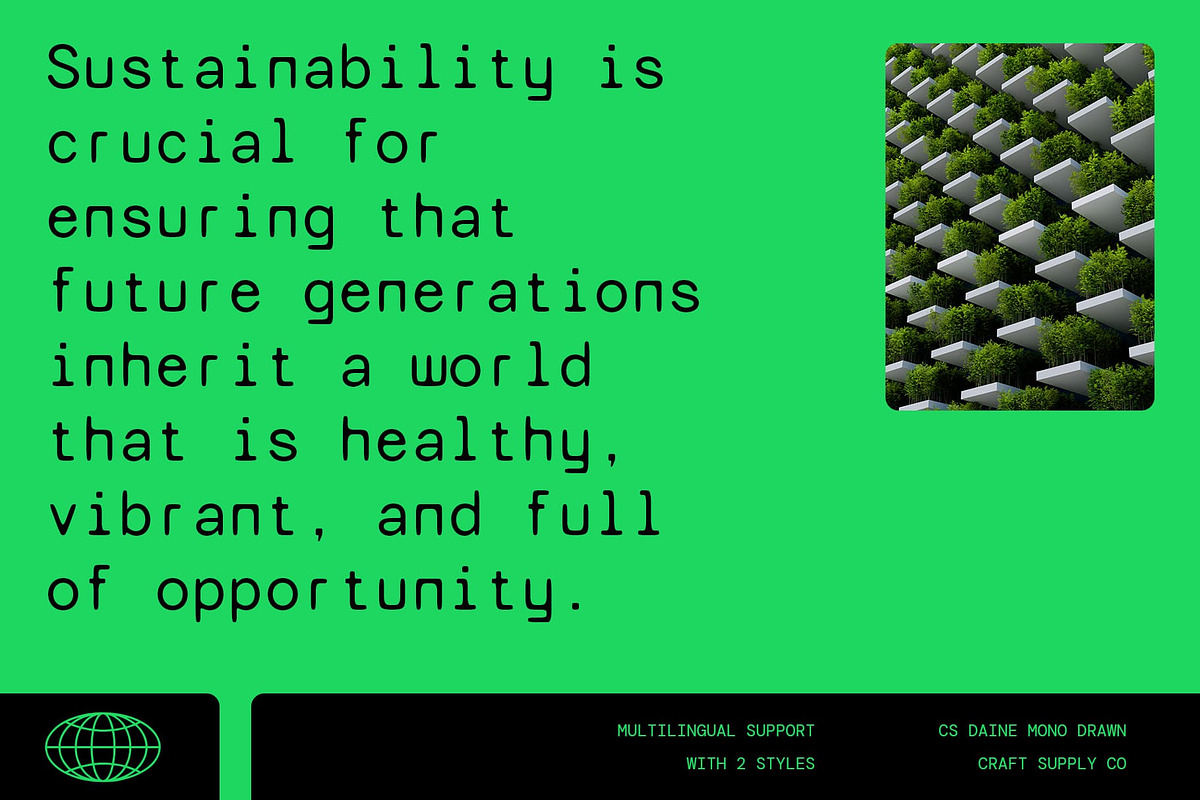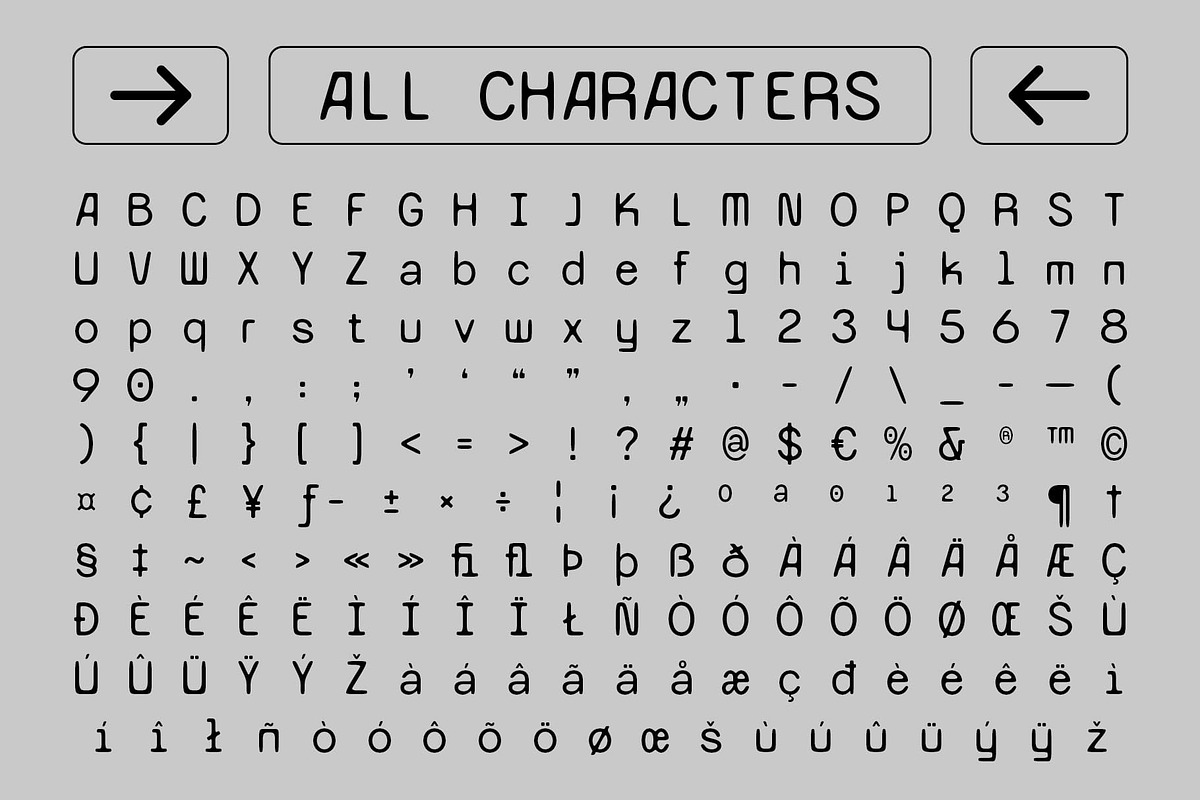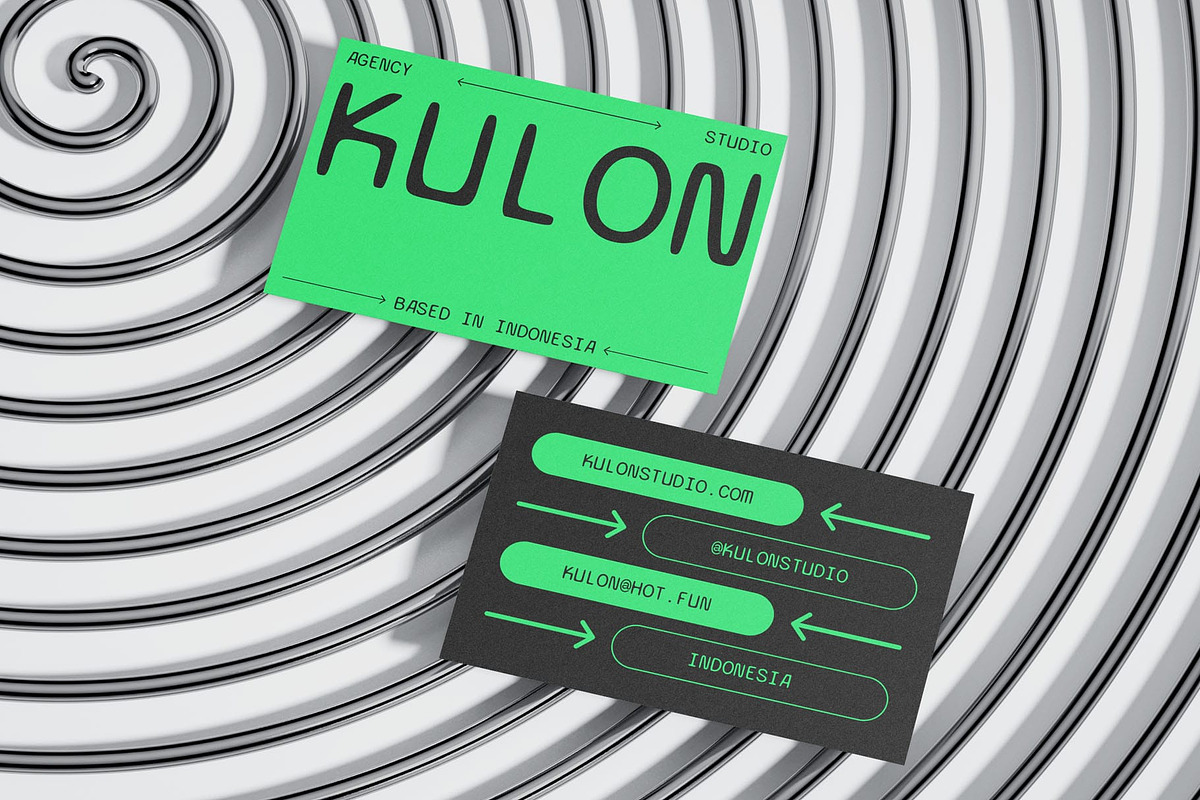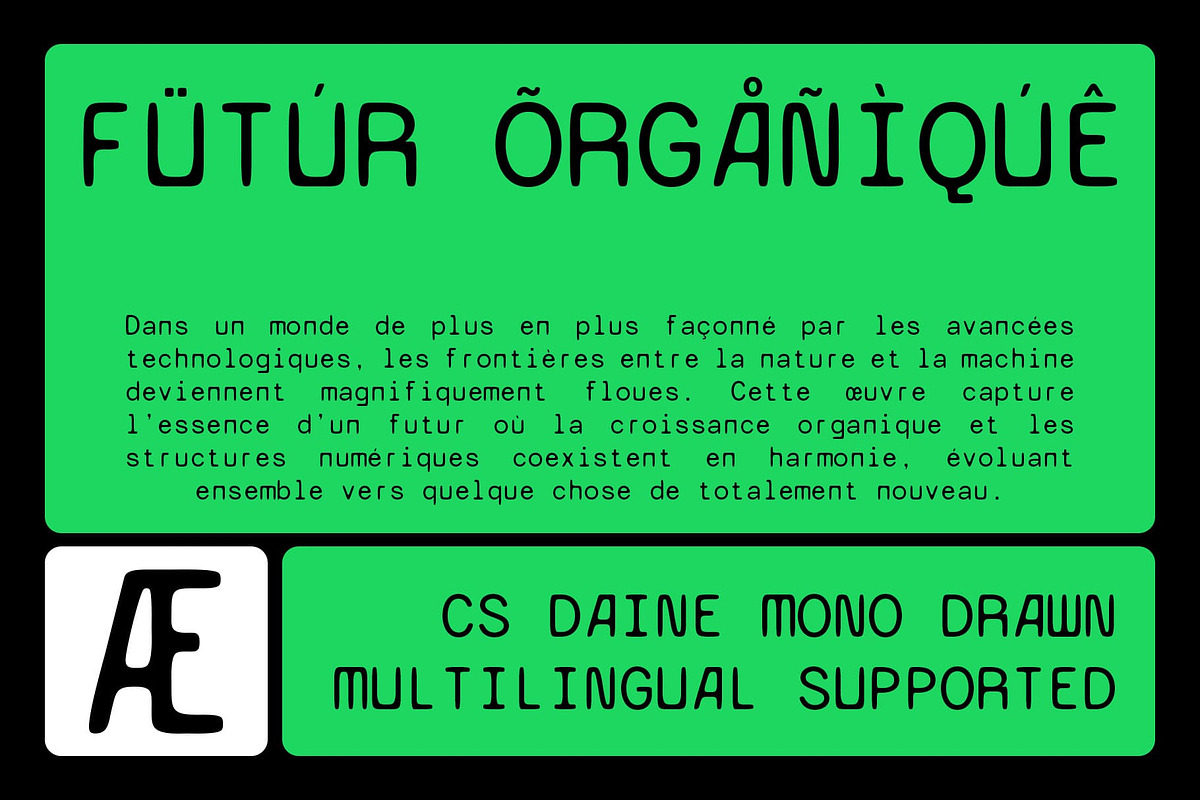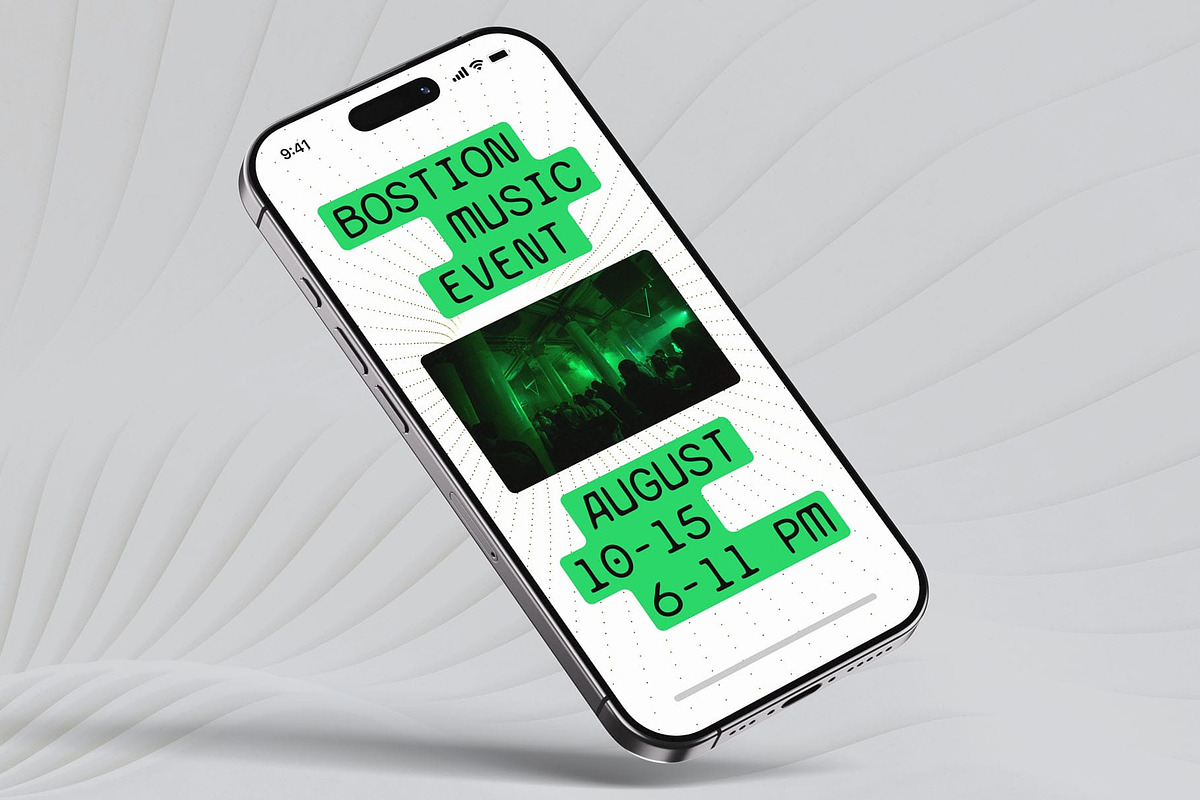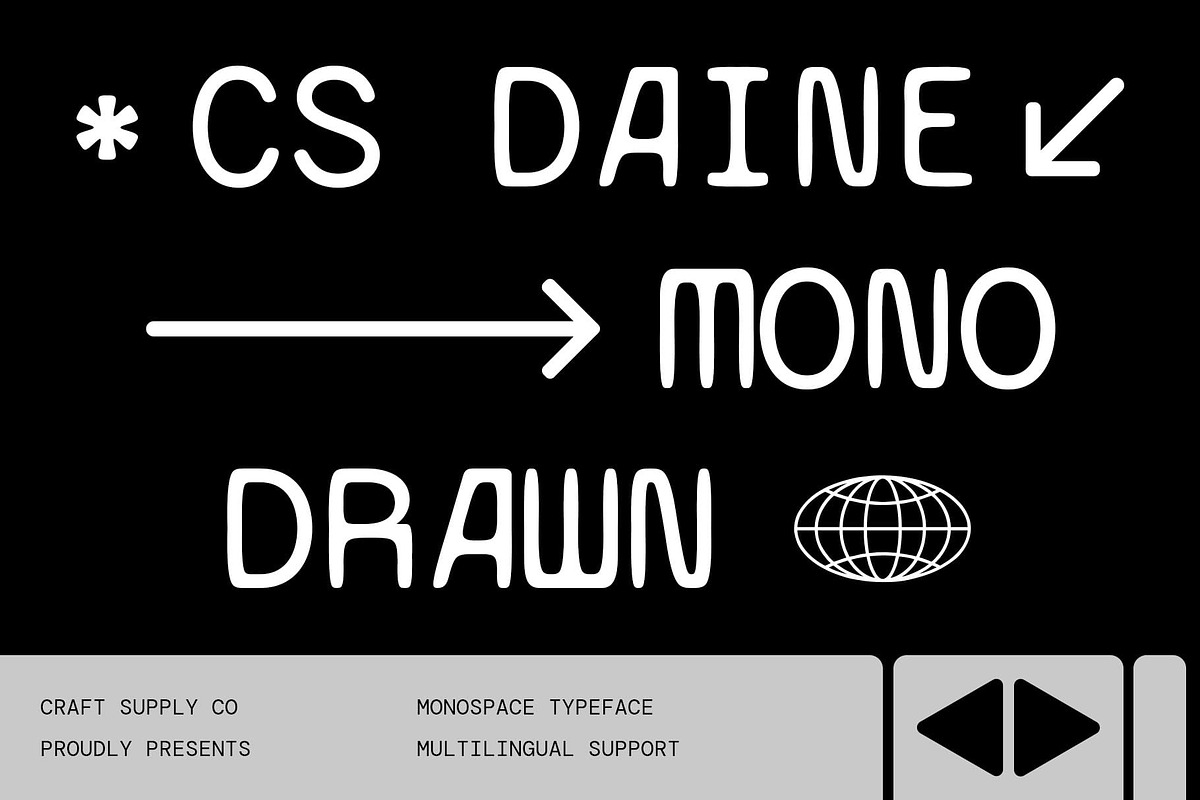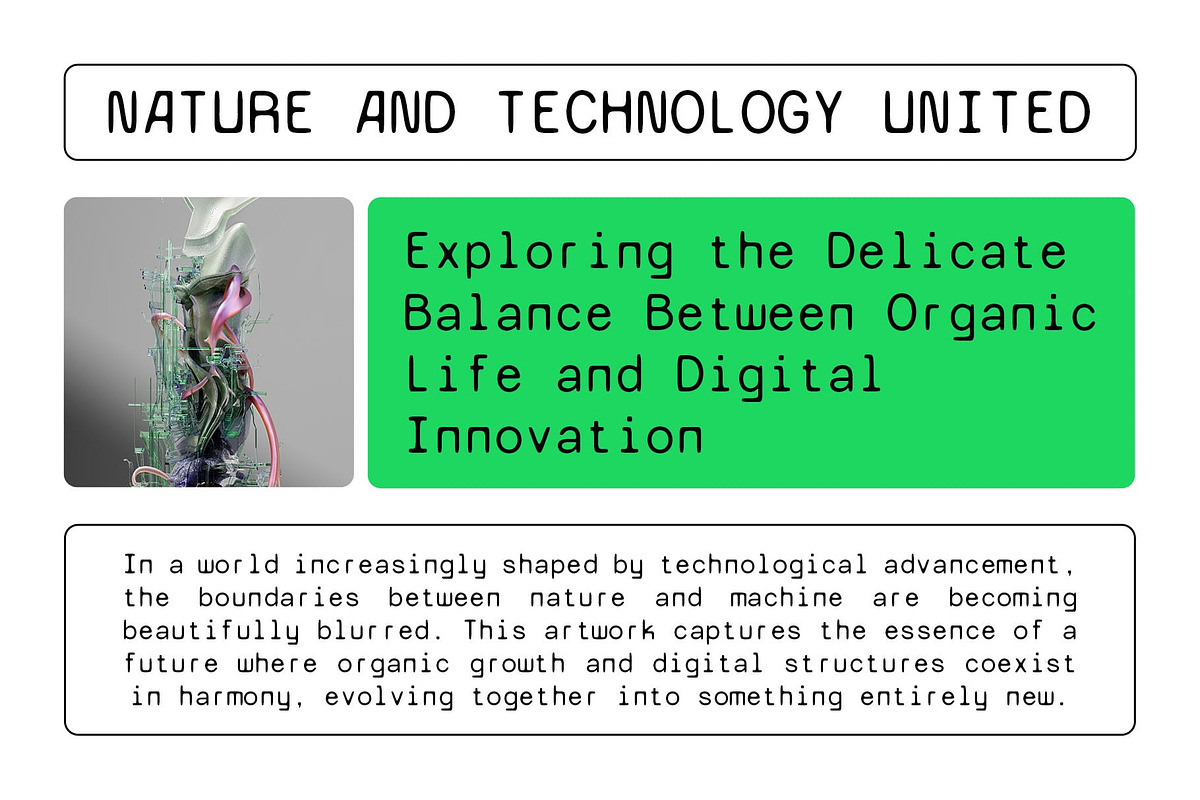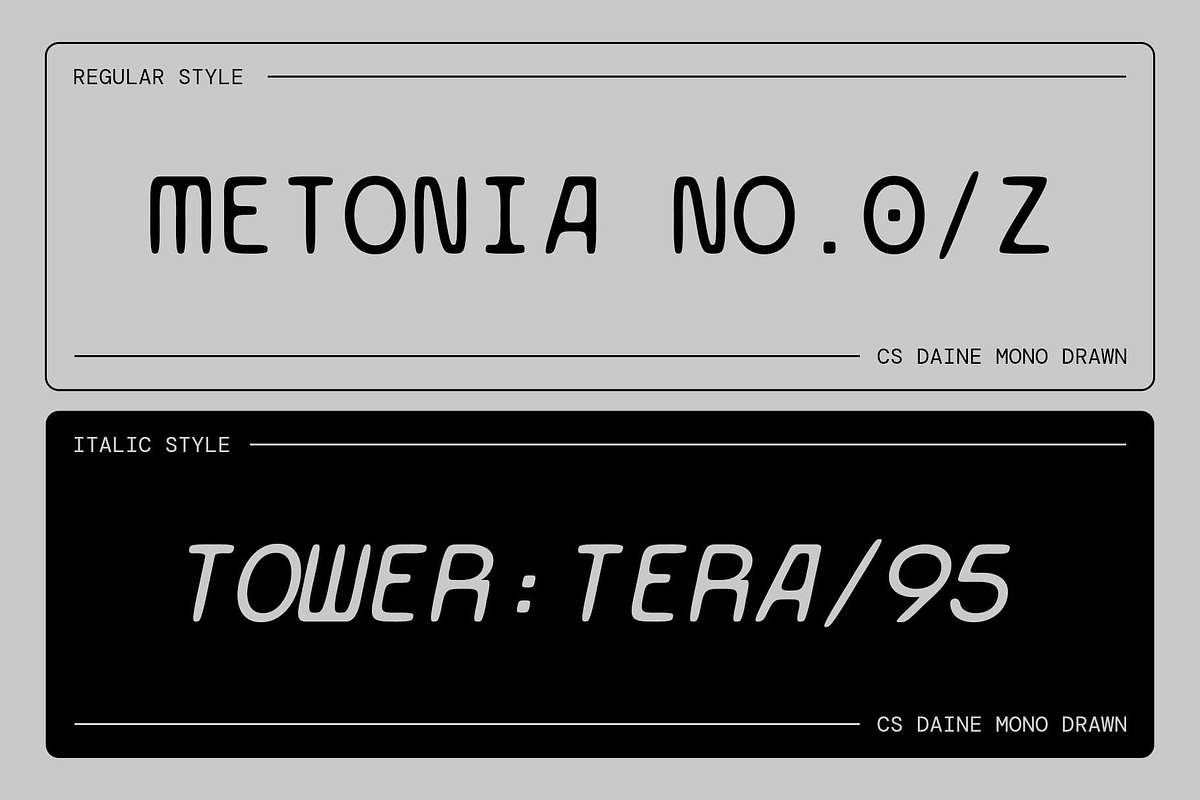
CS Daine Mono Drawn
CS Daine Mono Drawn – Modern Monospaced Meets Hand-Drawn Style
Monospaced Design with Clean Structure This is a modern sans-serif monospaced font that combines the precision of monospaced design with a unique hand-drawn texture. Its uniform spacing ensures clarity and organization, making it ideal for designs where consistency and structure are key, such as coding environments, technical documentation, or precise layouts.
Hand-Drawn Effect for Creative Flair The drawn effect added to each character introduces a personal, artistic touch to the rigid form of traditional monospaced fonts. This creative twist gives the font an expressive quality, blending the best of professional structure with a playful, handmade aesthetic. The result is a distinctive font that stands out while maintaining a clear, readable format.
Perfect for Tech Branding and Creative Design This modern font strikes a balance between professionalism and creativity. Its unique combination of a clean, monospaced design with an artistic, drawn texture makes it perfect for a variety of projects, from tech branding and coding interfaces to graphic design that requires a touch of personality and innovation.
Versatile for Digital and Print Projects Whether you’re designing websites, branding materials, or graphic-heavy presentations, this monospaced font brings versatility and style to both digital and print environments. It’s perfect for projects that need to maintain a sense of professionalism while embracing creativity and individuality.